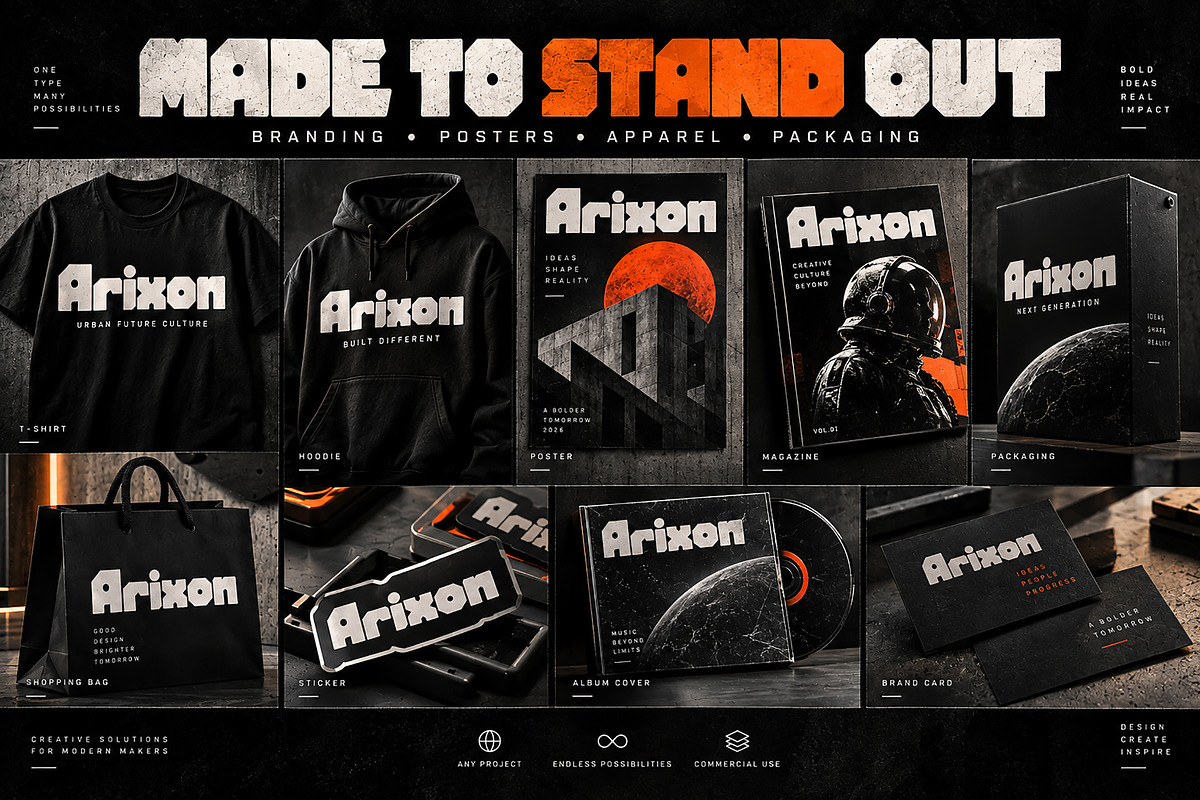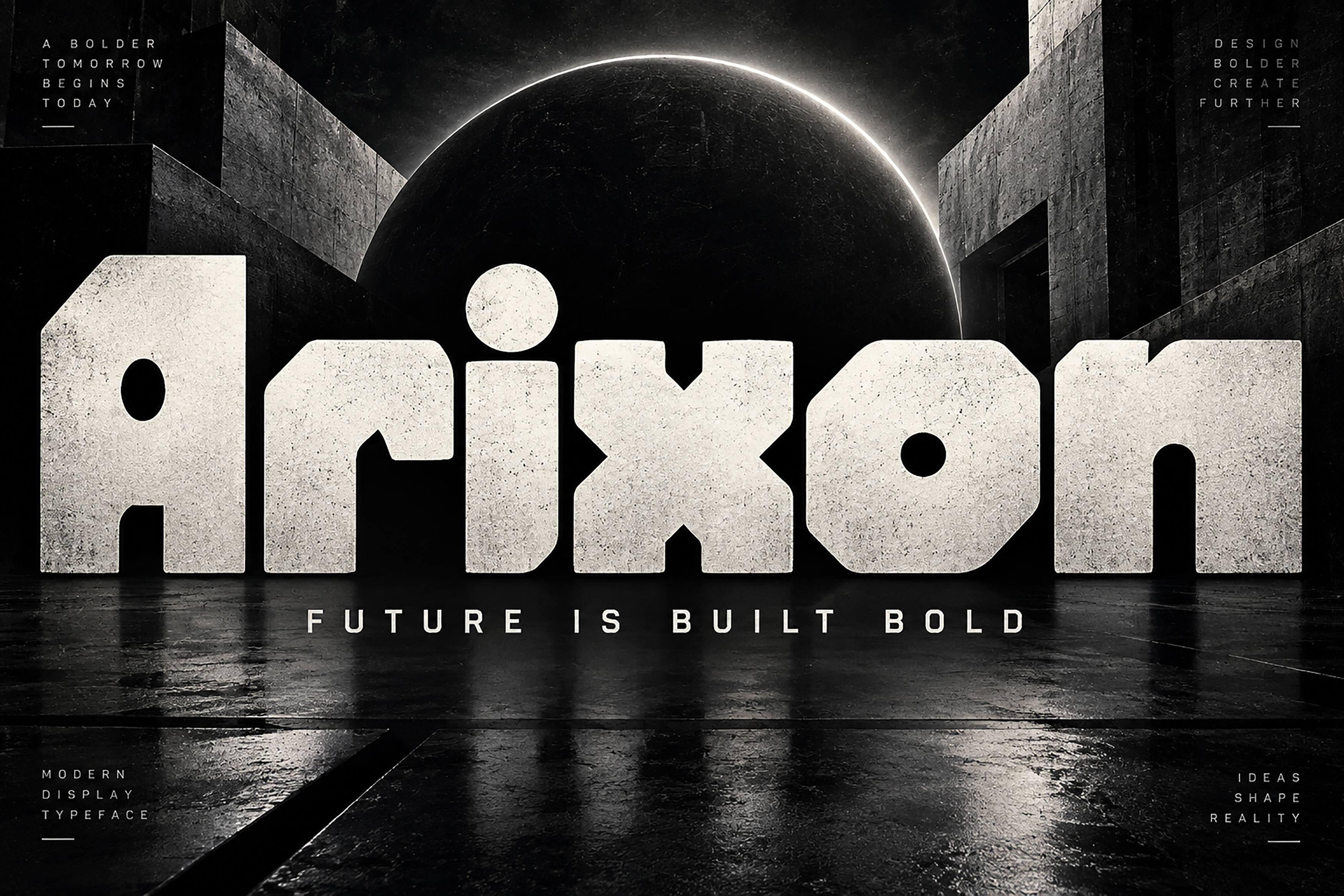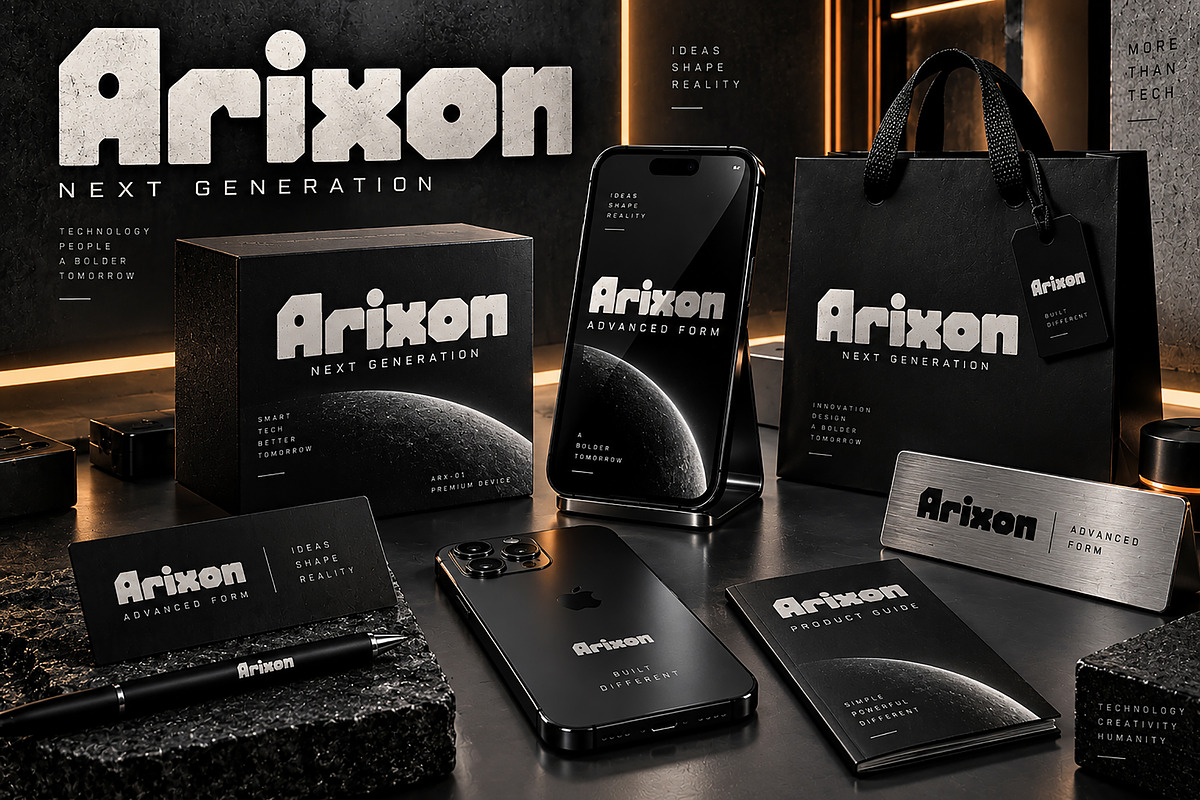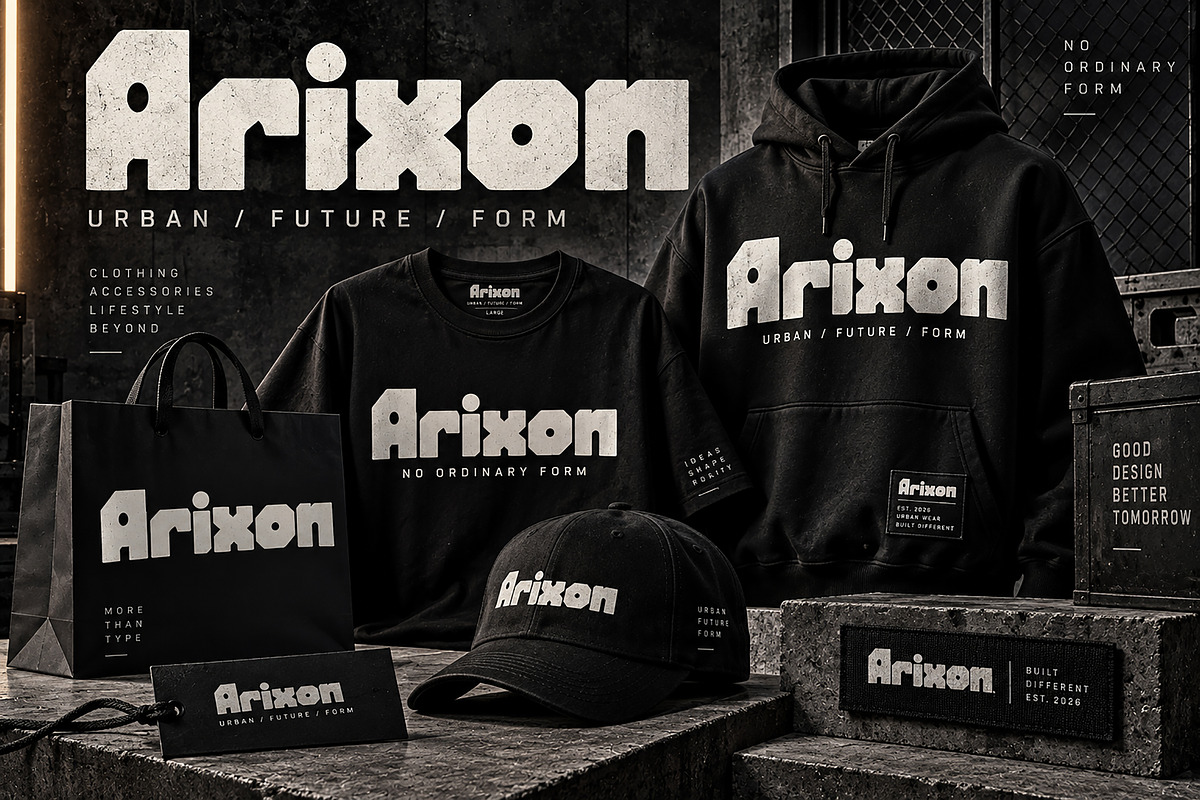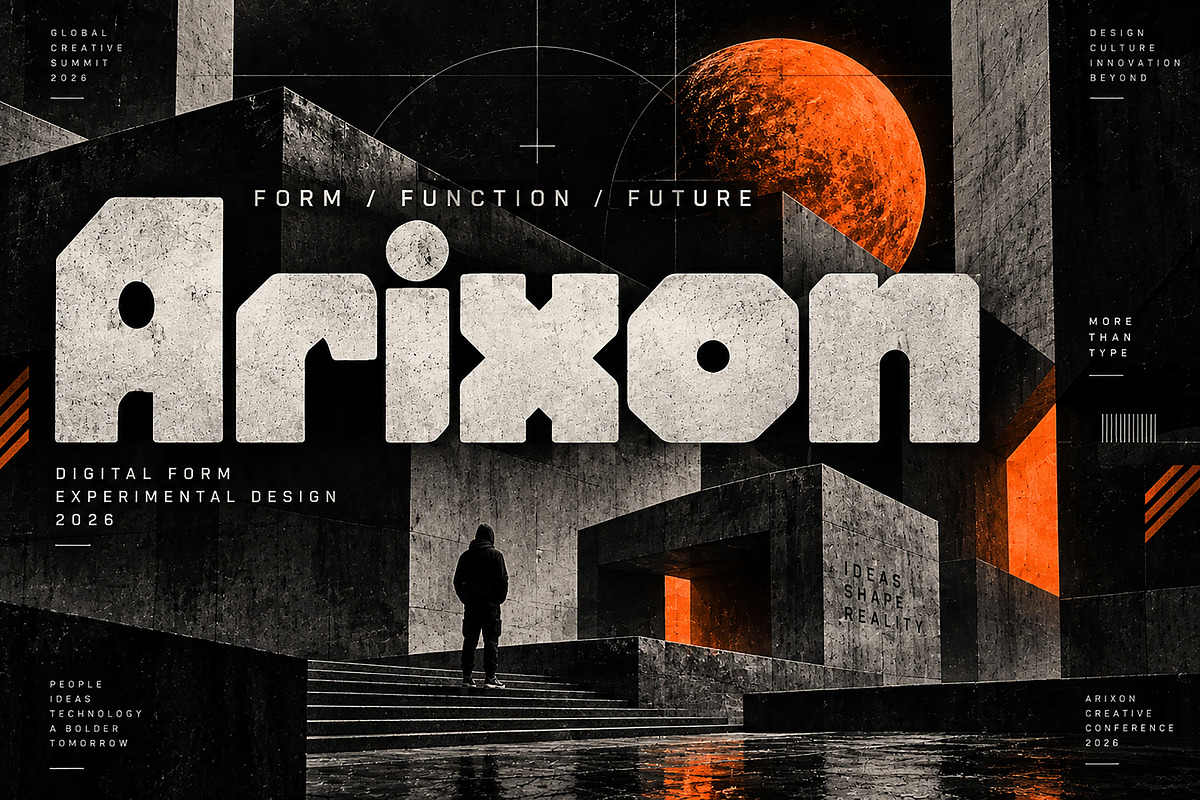
Arixon – Bold Display Font
Arixon – Bold Experimental Display Font
Arixon is a bold experimental display typeface designed to make an immediate visual impact. Featuring chunky geometric forms, unconventional cuts, strong silhouettes, and a futuristic brutalist character, Arixon is perfect for designs that need a powerful and distinctive typographic presence.
Its unique construction makes it especially suitable for streetwear branding, posters, album covers, music artwork, technology branding, packaging, editorial designs, logos, merchandise, advertising, and contemporary graphic design projects.
Arixon works beautifully in large-scale headlines and bold display compositions where typography needs to become the main visual element.
Logo & Brand Identity
Streetwear & Fashion Branding
Posters & Advertising
Album & Music Covers
Magazine & Editorial Design
Technology & Futuristic Branding
T-Shirts & Apparel
Labels & Badges
Event & Promotional Designs
Creative Typography Projects
Style: Bold / Experimental / Geometric / Futuristic Display
Arixon is made for designers who want bold typography with an unconventional, modern, and memorable personality.